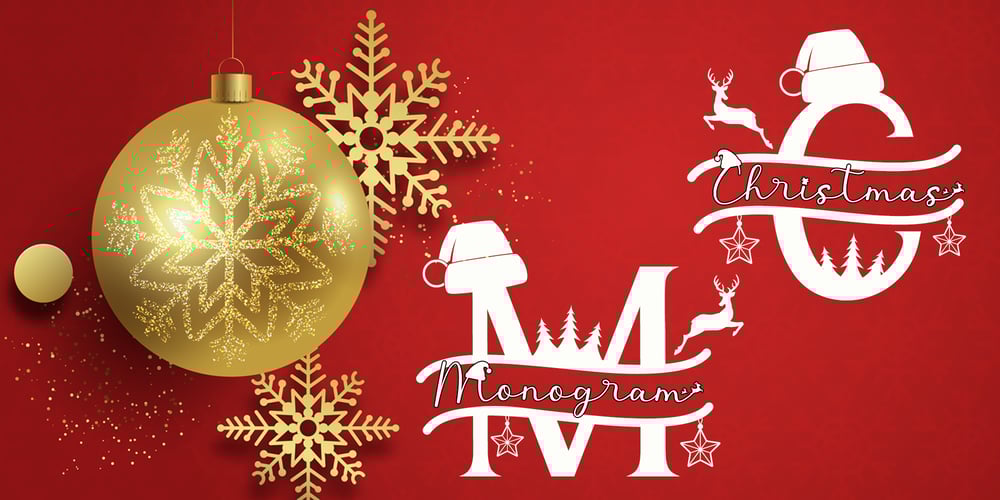
Cute Christmas Monogram Font Family was designed by Agung Eko Nugroho and published by AEN Creative Studio. Cute Christmas Monogram contains 2 styles and family package options. Cute Christmas Monogram is a joyful and festive duo font (decorative + script). It is ideal for Holiday-themed greeting cards and for any crafting project. This font is PUA encoded which means you can access all of the glyphs and swashes with ease!